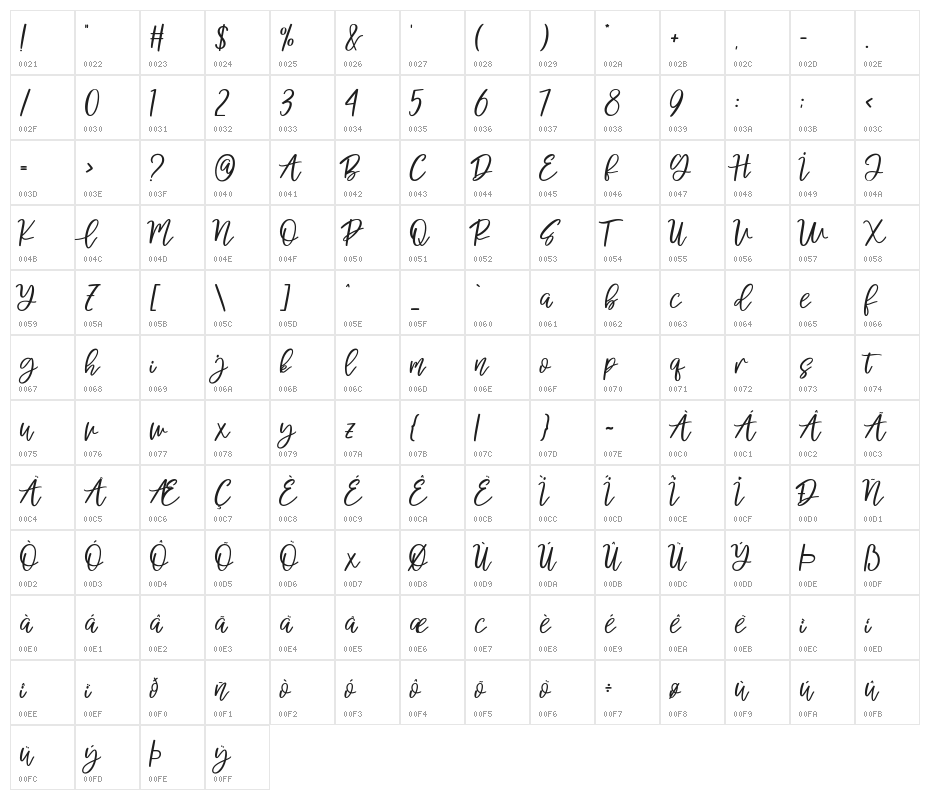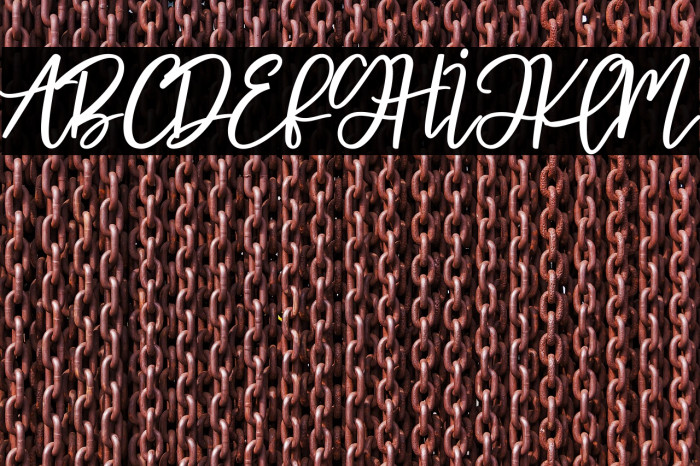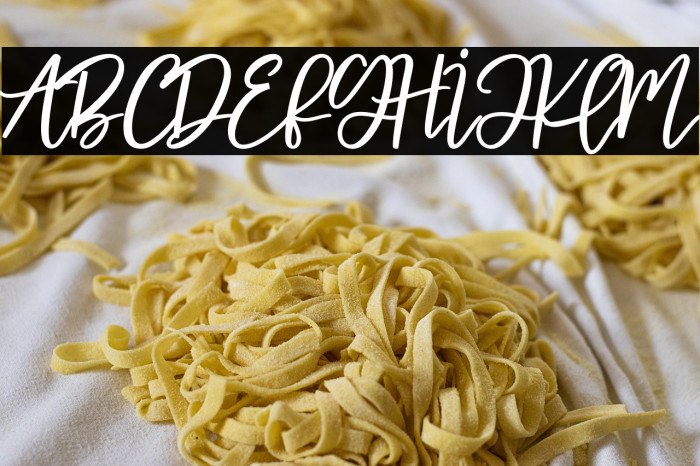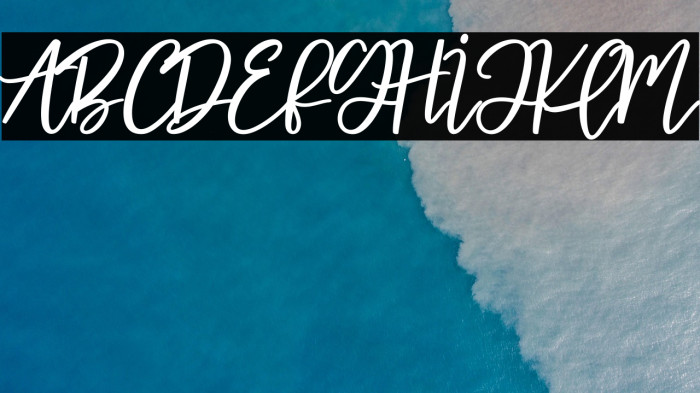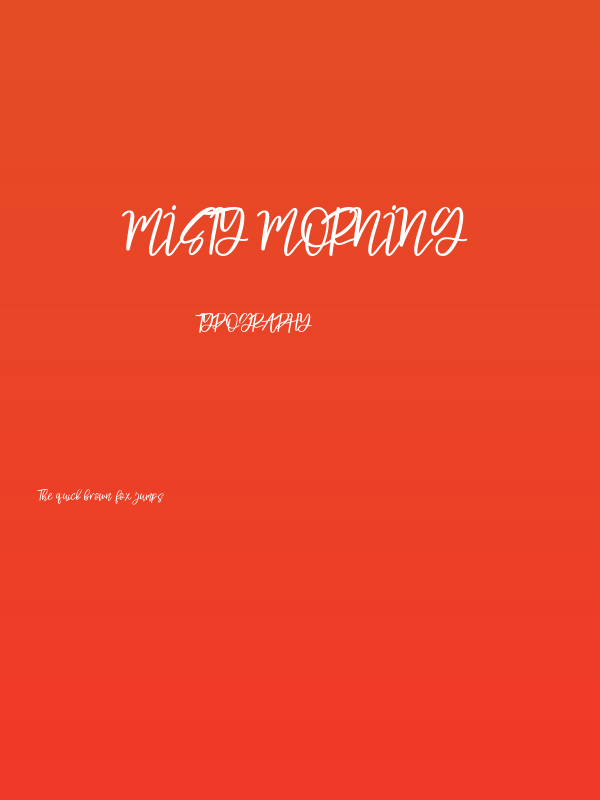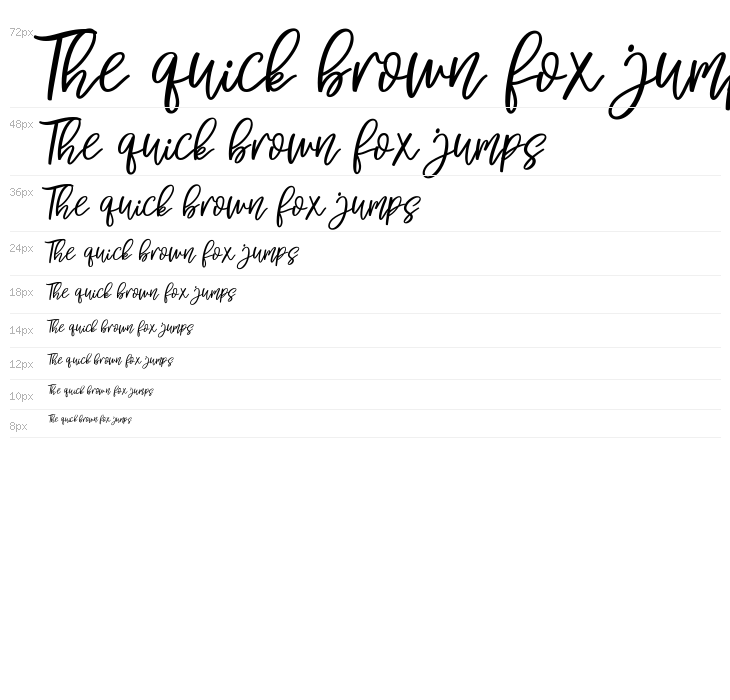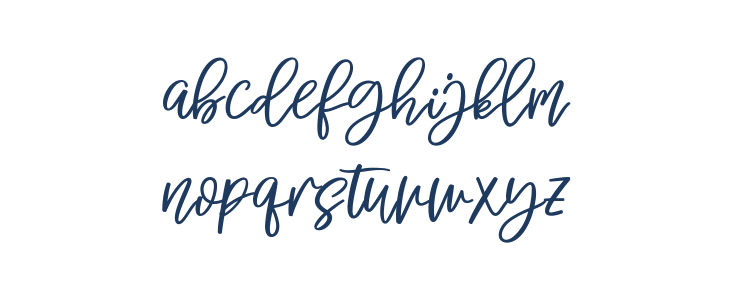
Misty Morning Font
Misty Morning Description
This font features a flowing, cursive style with a modern twist. The letters are elegantly connected, creating a seamless and fluid appearance. The strokes are smooth and consistent, with a slight slant that adds to its dynamic feel. The uppercase letters are bold and prominent, while the lowercase letters maintain a delicate balance, offering a harmonious blend. The numbers and special characters are crafted with the same attention to detail, ensuring uniformity across the set. This font exudes a sense of elegance and sophistication, making it ideal for projects that require a personal touch.
| Use Case | Logos, Invitations, Social Media |
| Proposed Projects | Ideal for wedding invitations, greeting cards, branding, and social media graphics. |